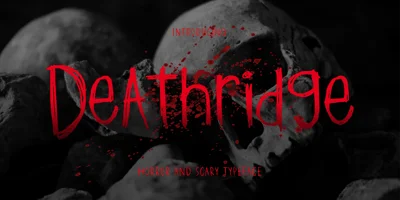
Deathridge Font
Deathridge Font is perfect for death metal band logos, horror movie titles, extreme sports branding, dark fantasy gaming graphics, underground music venues, apocalyptic novel covers, haunted escape rooms, gothic festival materials, extreme metal merchandise, and any intense project that demands uncompromising typography with dark, aggressive energy and brutal visual impact.
What makes Deathridge Font exciting is its relentless intensity that captures the raw power of extreme music and the uncompromising spirit of underground culture. This typeface embodies the brutal honesty of death metal aesthetics with jagged letterforms that seem forged in darkness and tempered by fire. The font's extreme character makes it perfect for brands and projects that want to communicate authenticity, rebellion, and the cathartic power of confronting life's darkest themes through artistic expression.
The Deathridge Font family includes multiple weights and distorted variations, featuring regular, bold, and ultra-heavy versions along with corroded styles and alternate characters that simulate metal corrosion and battle damage. This comprehensive collection allows designers to create brutally authentic typography that maintains the font's signature extreme character while providing flexibility for various underground and alternative design applications.
When exploring authentic extreme typography, Deathridge Font represents an exceptional opportunity to work with a typeface that genuinely captures the spirit of underground metal culture and artistic rebellion. This font demonstrates innovative design thinking by embracing the aesthetic beauty of destruction and decay, creating letterforms that feel genuinely weathered by the elements of extreme artistic expression.
Professional designers appreciate Deathridge Font for its ability to instantly establish credibility within underground music and alternative culture communities. The font's brutal character makes it particularly effective for record labels, entertainment venues, and lifestyle brands seeking to connect with audiences who value artistic authenticity and uncompromising creative expression over mainstream commercial appeal.
The enduring appeal of Deathridge Font lies in its perfect representation of artistic rebellion and underground authenticity that continues to inspire creative communities worldwide. This typeface serves as a powerful symbol of artistic freedom and the courage to explore difficult themes through creative expression, making it invaluable for projects celebrating alternative culture and underground artistry.
For creative professionals working with extreme and underground brands, Deathridge Font represents the ultimate typography solution that brings authentic underground energy and brutal artistic honesty to any application, ensuring designs reflect the uncompromising spirit and dark beauty that define true alternative culture and extreme artistic expression.